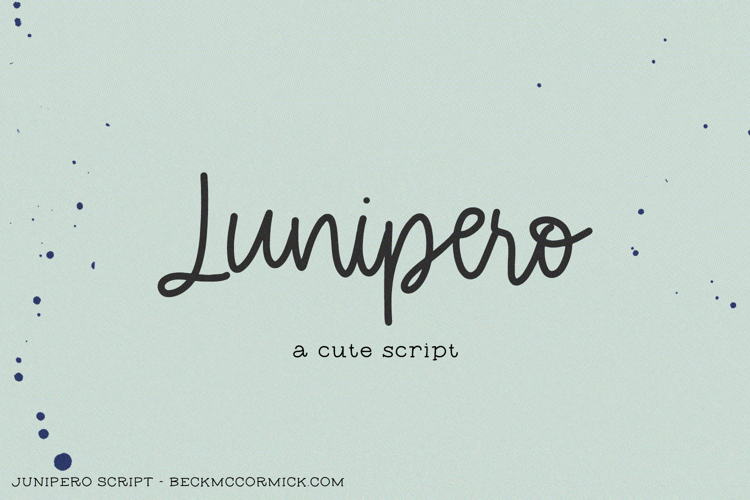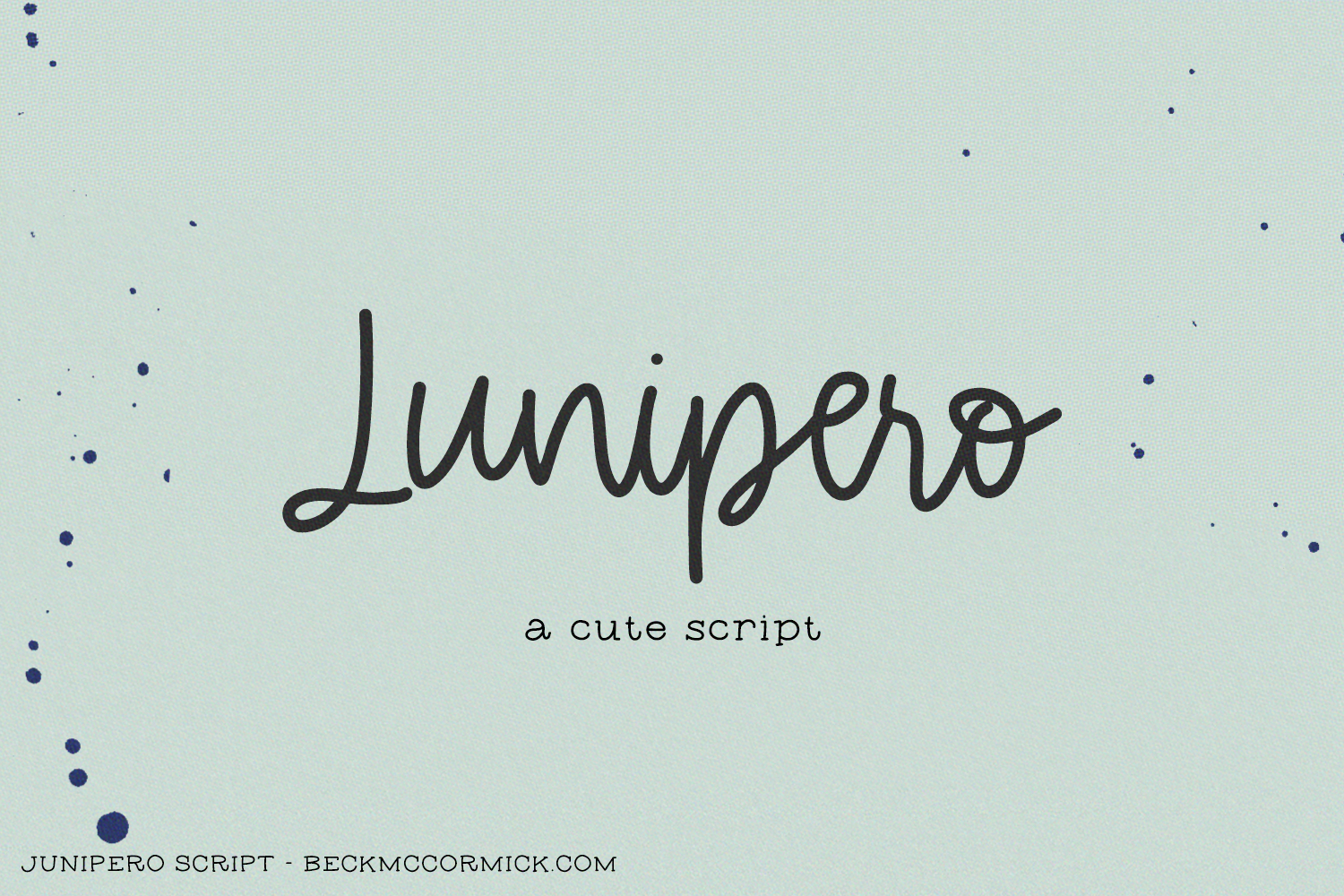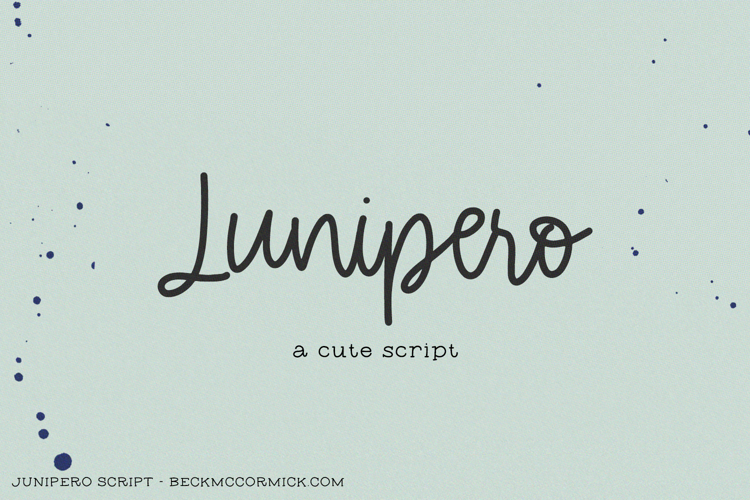
Introducing Junipero, a simple monoline script font!
- 39 ligatures - aa, ad, ag, aq, ax, ca, cg, co, cq, da, dc, dd, dg, do, ex, fd, gd, ha, hd, hg, ia, ic, id, iq, ld, md, na, nd, ng, nq, nx, rc, rd, ro, ta, td, tg, ud, ug